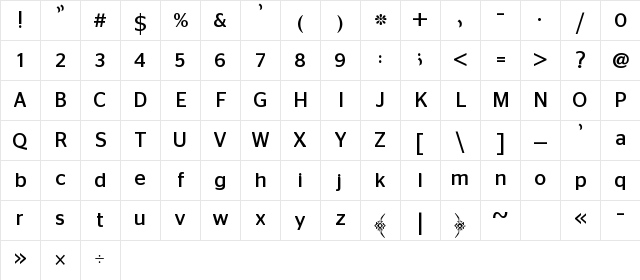
Kufyan Arabic Bold
Foundry: IBRAHIM HAMDI
Designer: IBRAHIM HAMDI
Design Context for Kufyan Arabic
Kufyan Arabic is a composed and adaptable typeface that performs quietly and consistently across a wide range of design contexts. Its bold stroke weight gives it real presence on the page.